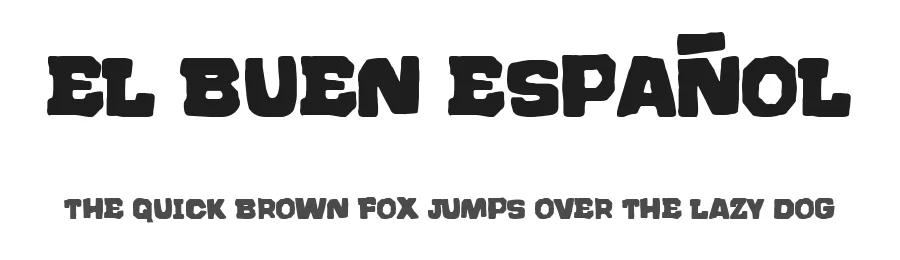
About CF University Of Nowhere Font
CF University Of Nowhere is a decorative font designed by Cloutierfontes. It includes 88 glyphs, a regular weight, TTF (TrueType) format, and 106 languages. CF University Of Nowhere is free to download; check the license details on this page before commercial use. Decorative fonts like CF University Of Nowhere work best for logos, posters, packaging, and standout headlines.
CF University Of Nowhere Font is a decorative font that shines as a display or heading face. Pair it with a clean sans-serif or serif font for body text β the contrast creates a clear hierarchy while the two styles stay balanced and easy to read.